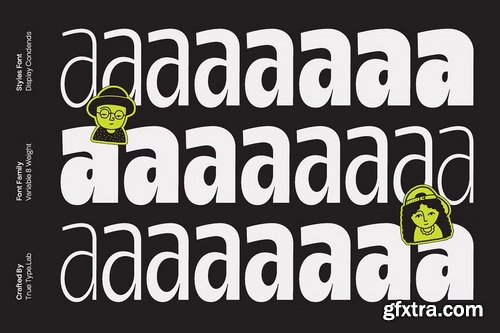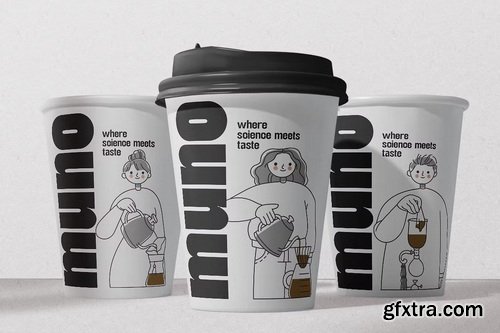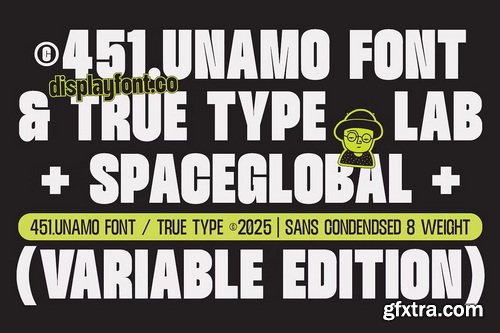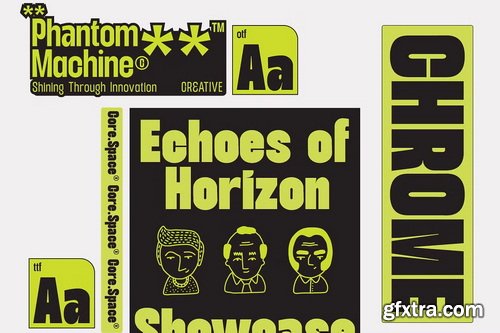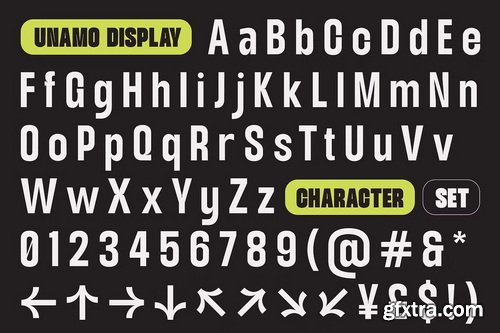
CreativeMarket - TT Unamo Sans Display Condensed - 8 Fonts
- TT Unamo is a bold and modern display sans condensed font family designed to command attention and deliver messages with precision. With its clean lines, narrow proportions, and strong geometric foundation, it’s perfect for projects that demand impactful typography without sacrificing clarity.
- Engineered for versatility, TT Unamo excels in posters, headlines, editorial titles, branding, packaging, and digital interfaces. Its condensed structure allows more text in limited spaces while maintaining excellent legibility and visual balance.
- TT Unamo offers a refined yet assertive personality, making it ideal for contemporary brands, sports campaigns, fashion editorials, and dynamic presentations. Whether you need a confident headline or a stylish typographic element, TT Unamo ensures your message stands out.